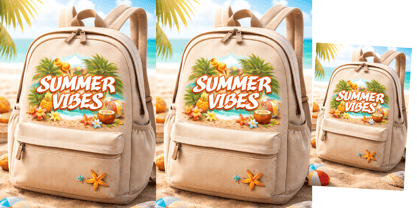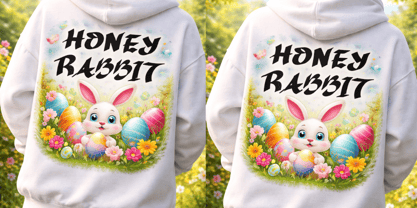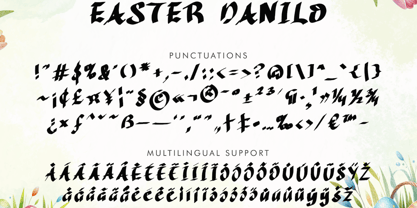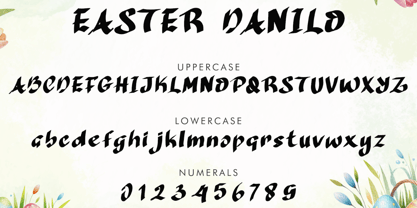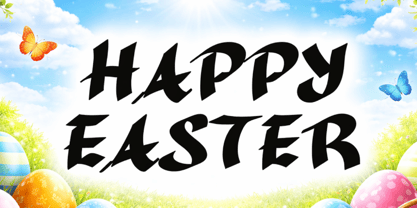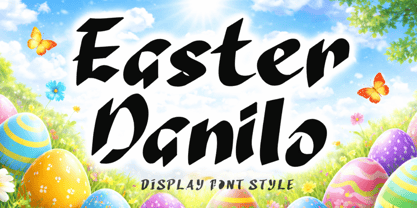
Easter Danilo
by Yoga Letter
The Easter Danilo Font Family was designed by Isroni Yoga Prasetya and published by Yoga Letter. Easter Danilo contains 1 styles. More about this family
"Easter Danilo" is a unique and elegant display font. It features uppercase and lowercase letters, numerals, punctuations, and multilingual support. It's perfect for Easter, summer, holidays, Teacher's Day, Mother's Day, print, banners, branding, stickers, vacations, logos, Christmas, funny text, bunny, rabbit, cartoons, comics, patriotic font and more.